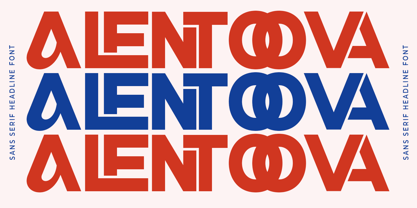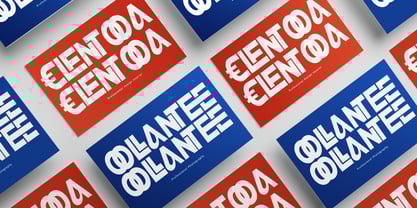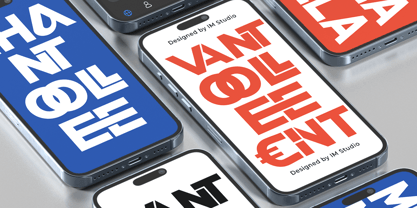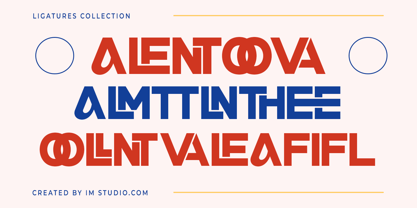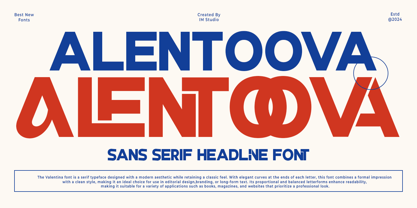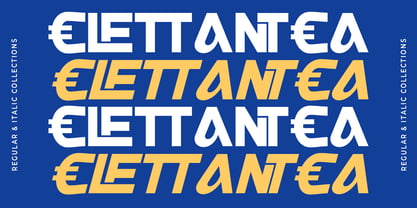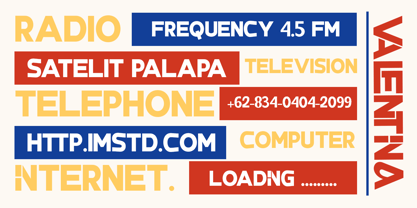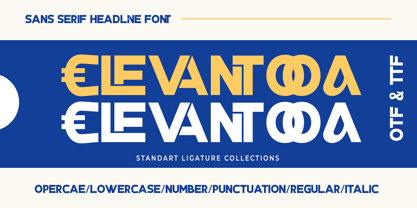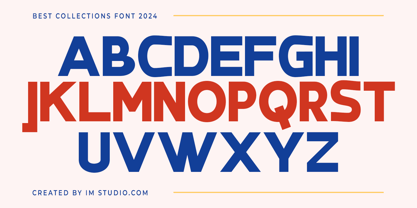
Alentoova
La famille de polices Alentoova a été conçue par Ikhsan Maulana et publiée par IM Studio. Alentoova contient 2 styles et options de package familial.
Alentoova is a graceful and enchanting typeface that seamlessly combines classic beauty with contemporary flair. Its design boasts elegantly crafted curves and refined letterforms, creating a harmonious flow that captivates the eye. I have enhanced Alentoova with a variety of meticulously designed ligatures and alternate characters, offering even more versatility and creative possibilities. These features add a sense of sophistication and artistry to any project, making it perfect for branding, wedding invitations, or editorial layouts. Alentoova exudes a timeless charm that elevates the visual appeal, and its delicate balance of modern elegance and vintage-inspired details makes it the perfect choice for those seeking a typeface that radiates both style and personality.
Let me introduce myself, my name is Ikhsan Maulana. I am the owner of IM Studio Foundry which was founded in 2018. IM Studio is a font design studio based in Indonesia. Currently, I am fully pursuing my new passion. I fell in love with the world of writing, drawing letters, and love all forms of creativity. I love exploring and seeing how typography reflects a brand's personality. I want to continue to develop my creativity and use my passion to provide greater benefits for myself and the designer community. I created my first font in mid-2018. Since then, I have transformed my freelance business into Type Foundry. Founding IM Studio to help designers choose their projects.Thank you. Ikhsan Maulana